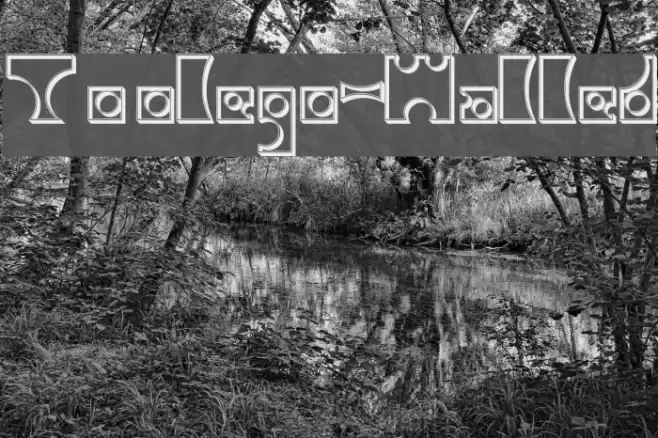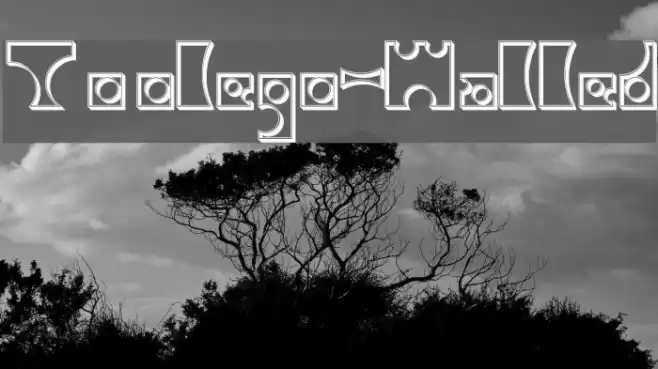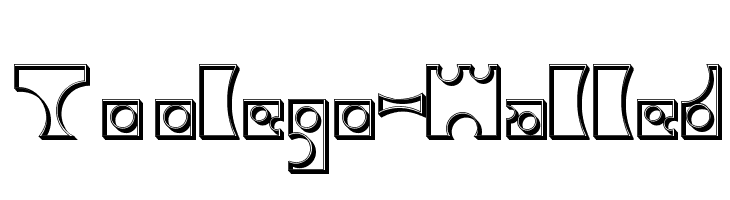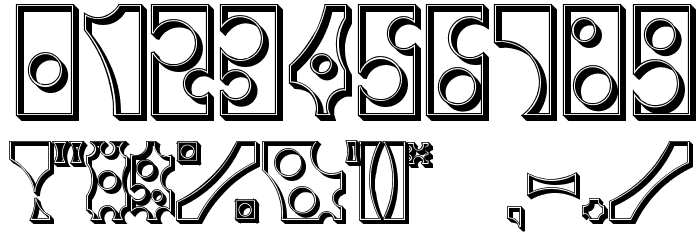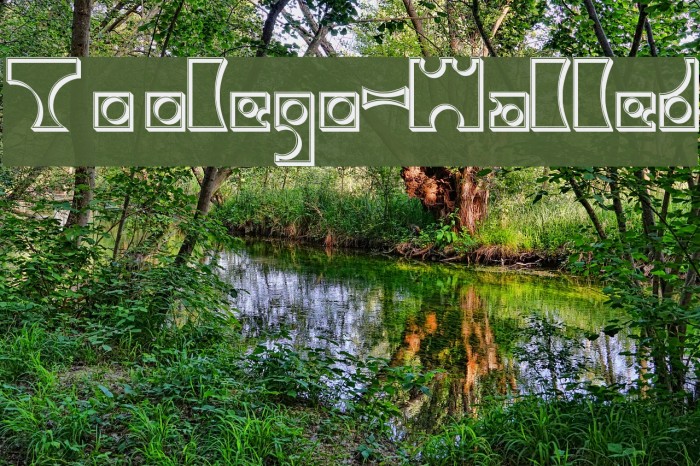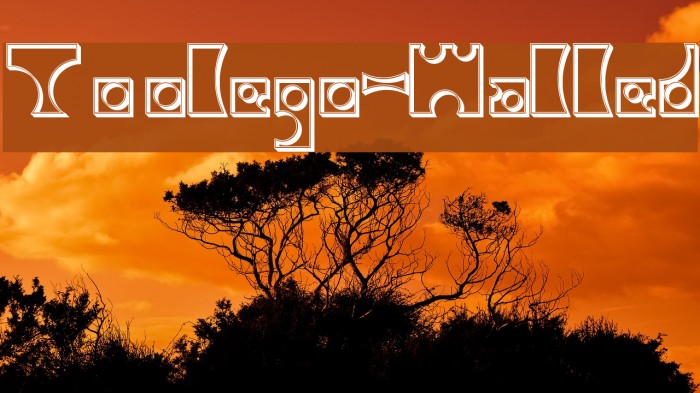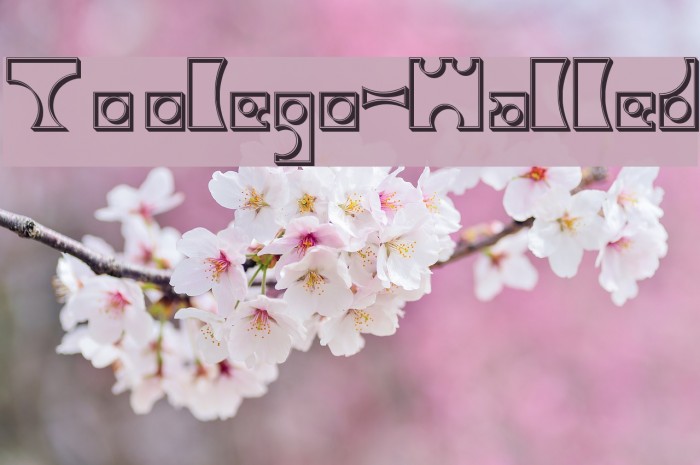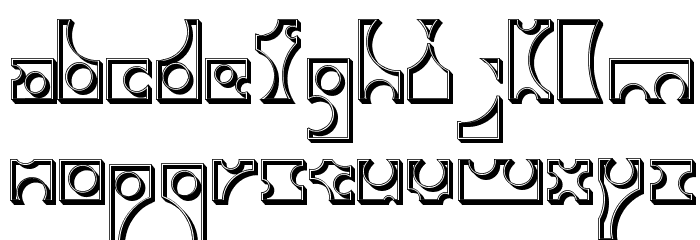
Toolego-Walled Font
Toolego-Walled Description
This font features a unique and artistic design with a decorative style. Each character is enclosed within a rectangular or square frame, giving it a structured and geometric appearance. The letters and numbers have intricate cutouts and curves, creating a visually striking effect. The font combines elements of modern and vintage styles, making it suitable for creative and eye-catching designs. The bold outlines and distinct shapes make it stand out, while the enclosed forms provide a sense of uniformity and balance.
A decorative font with geometric frames and intricate cutouts from 3D fonts.
- Proposed Projects: Ideal for poster designs, album covers, branding projects, and any creative work that requires a bold and artistic touch.